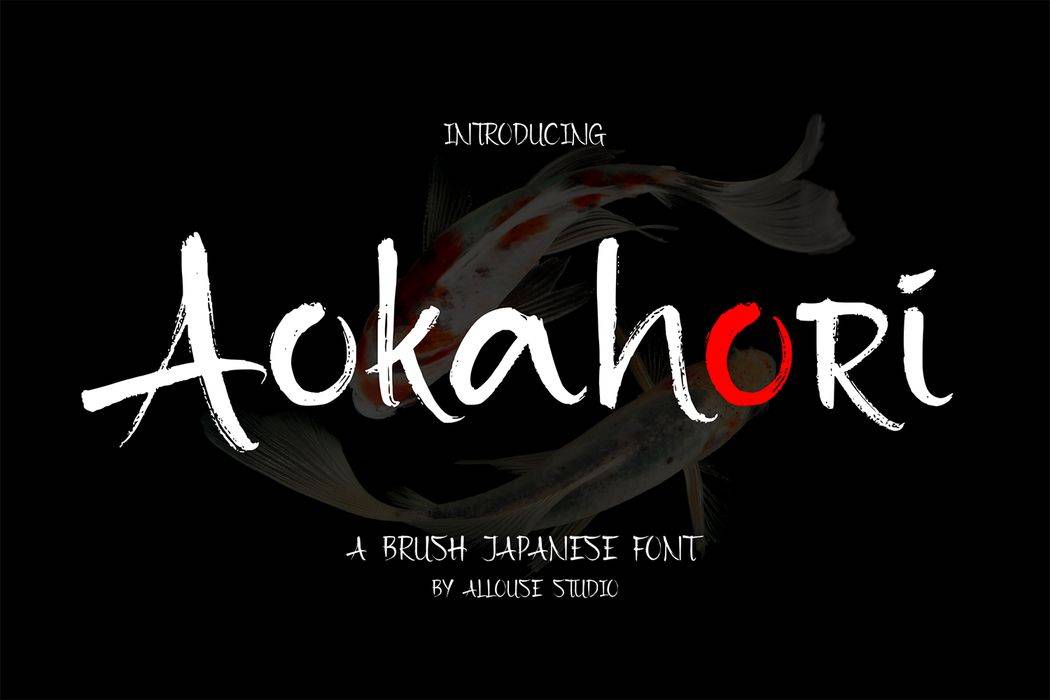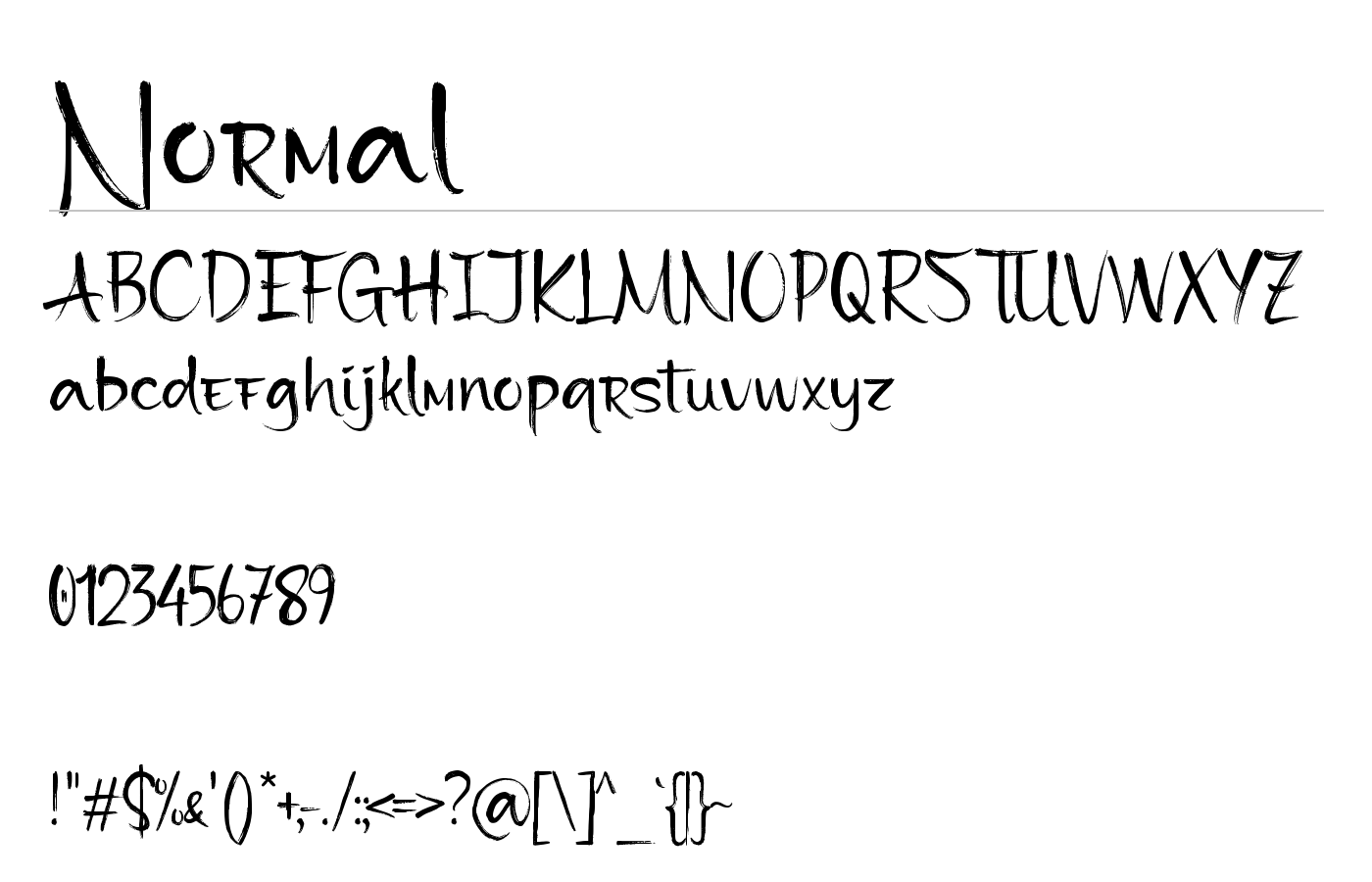
Aokahori is a playful, handwritten sans serif font with a casual and slightly rough brushstroke texture, giving it a lively and organic feel. Its tall, narrow letterforms and moderate contrast make it ideal for creative projects, adding a personal and artistic touch to headlines, posters, or branding that seeks a friendly, approachable vibe. This font works well where a unique, hand-crafted style is desired to convey warmth and individuality.
Aokahori Font
About Aokahori Font